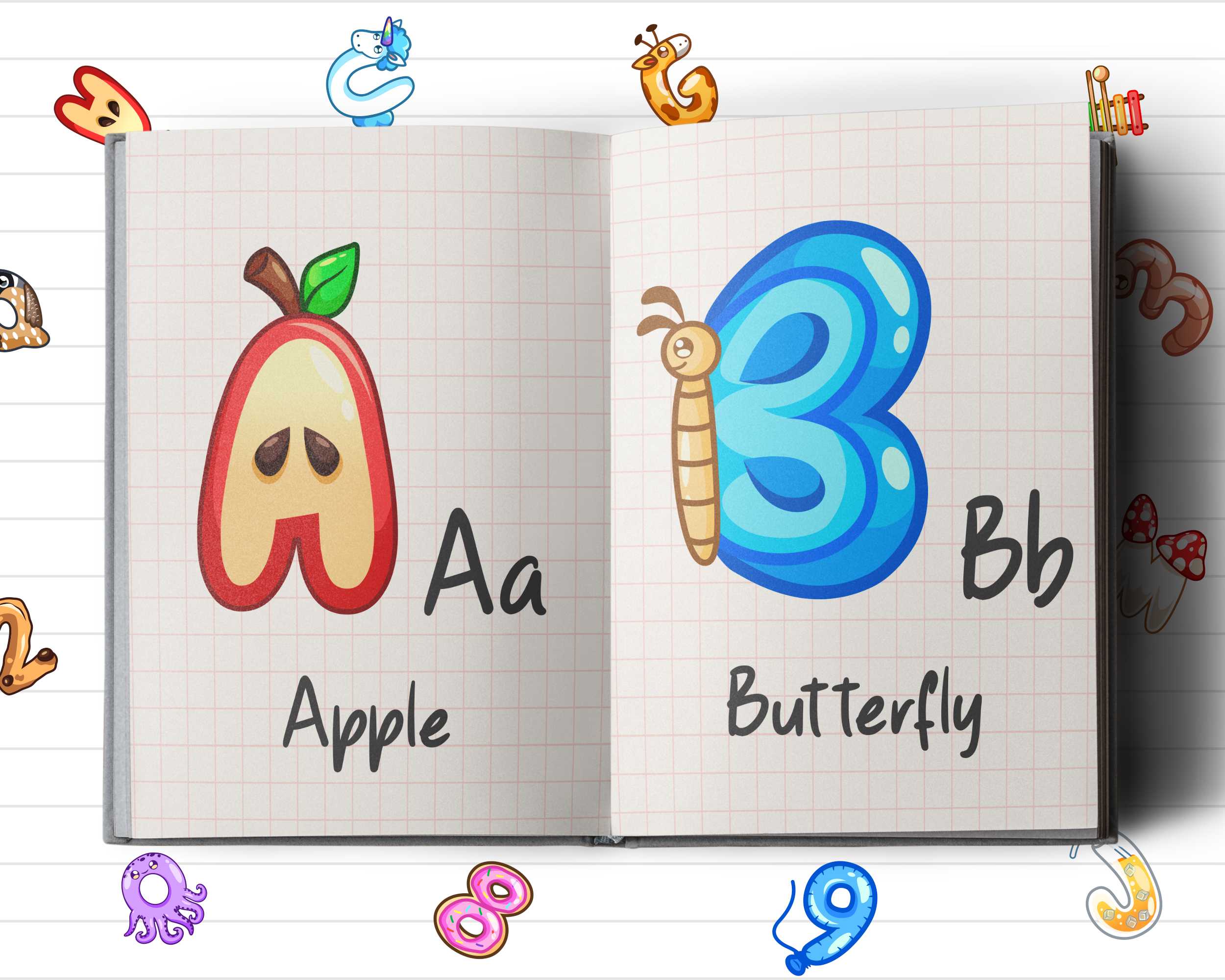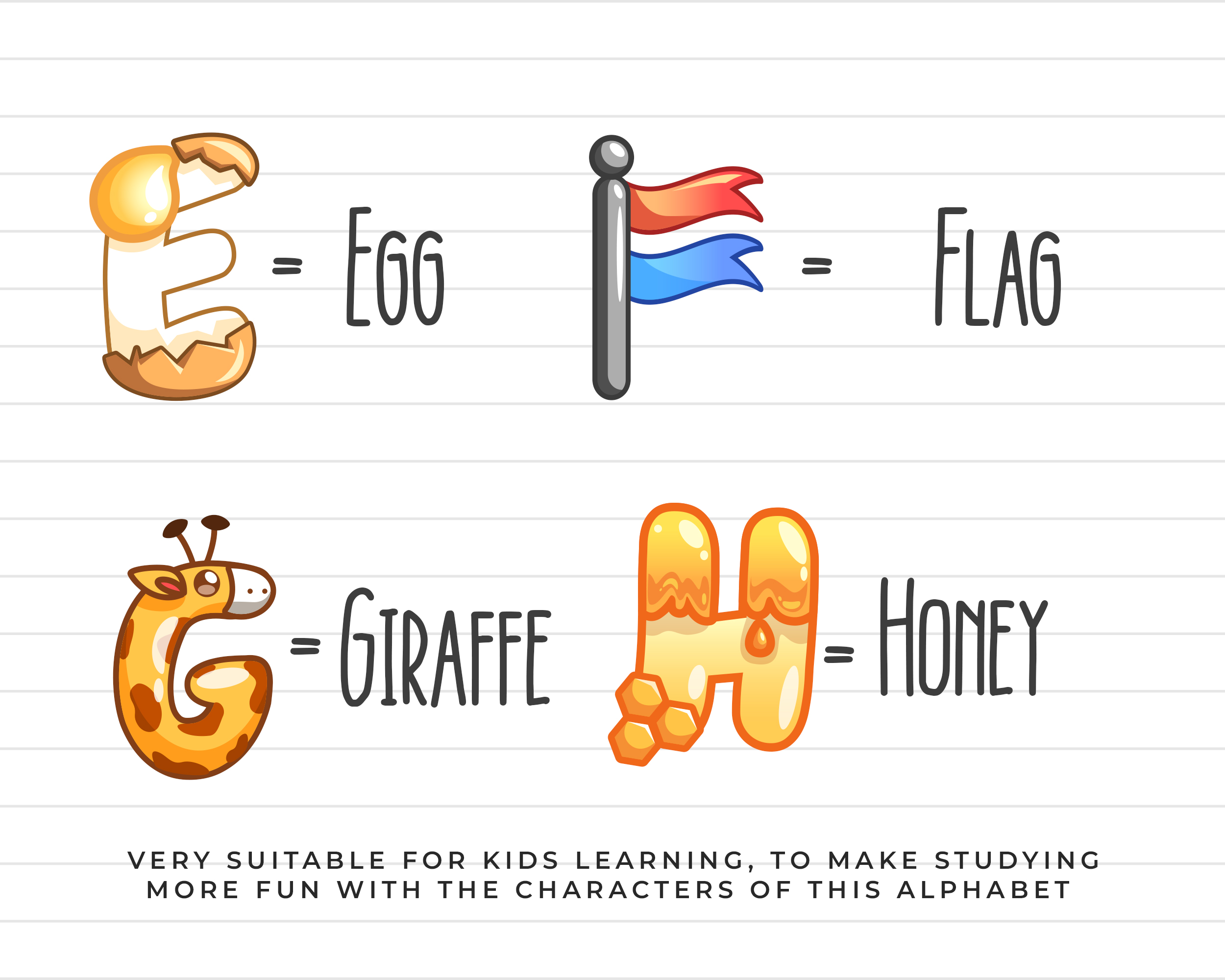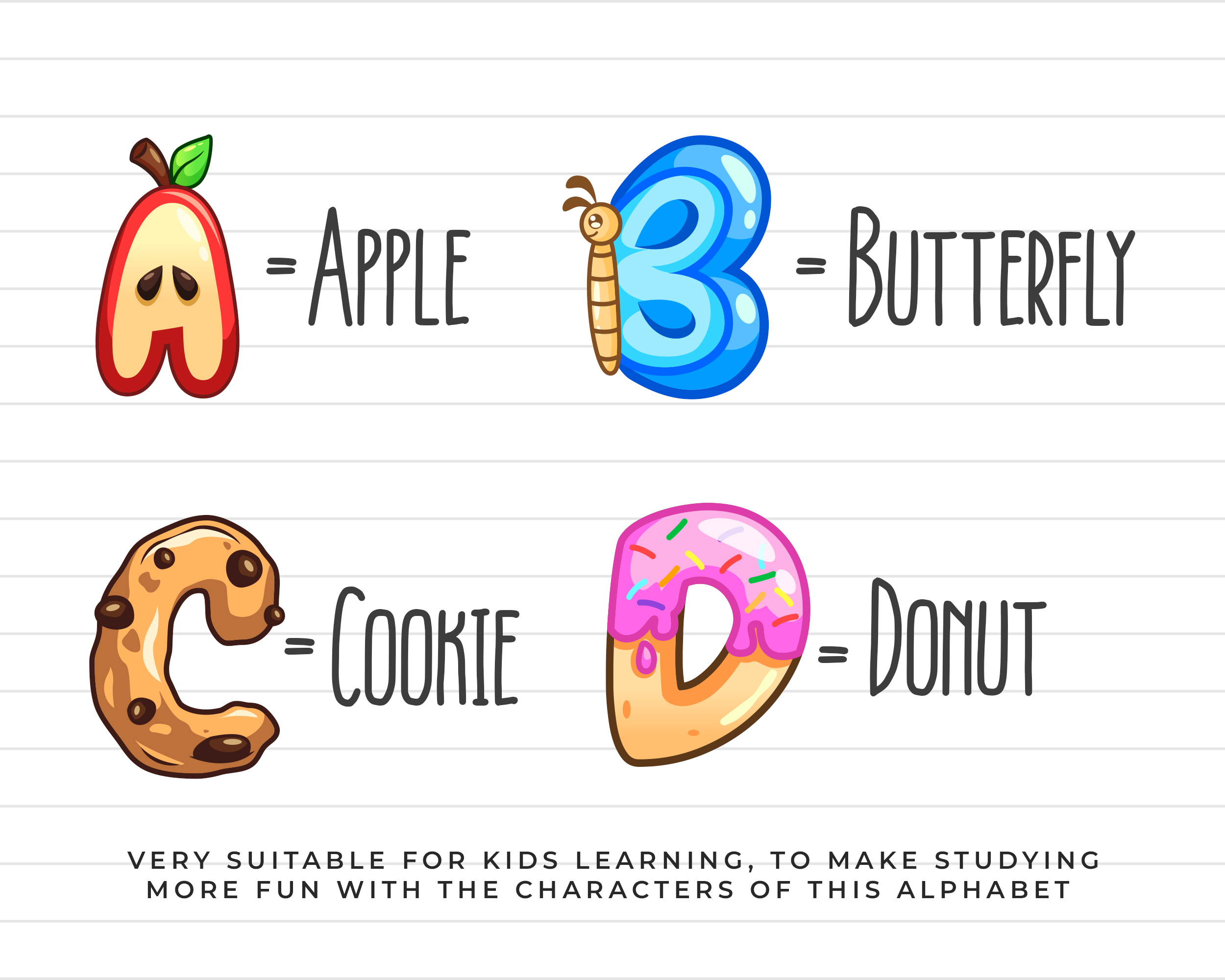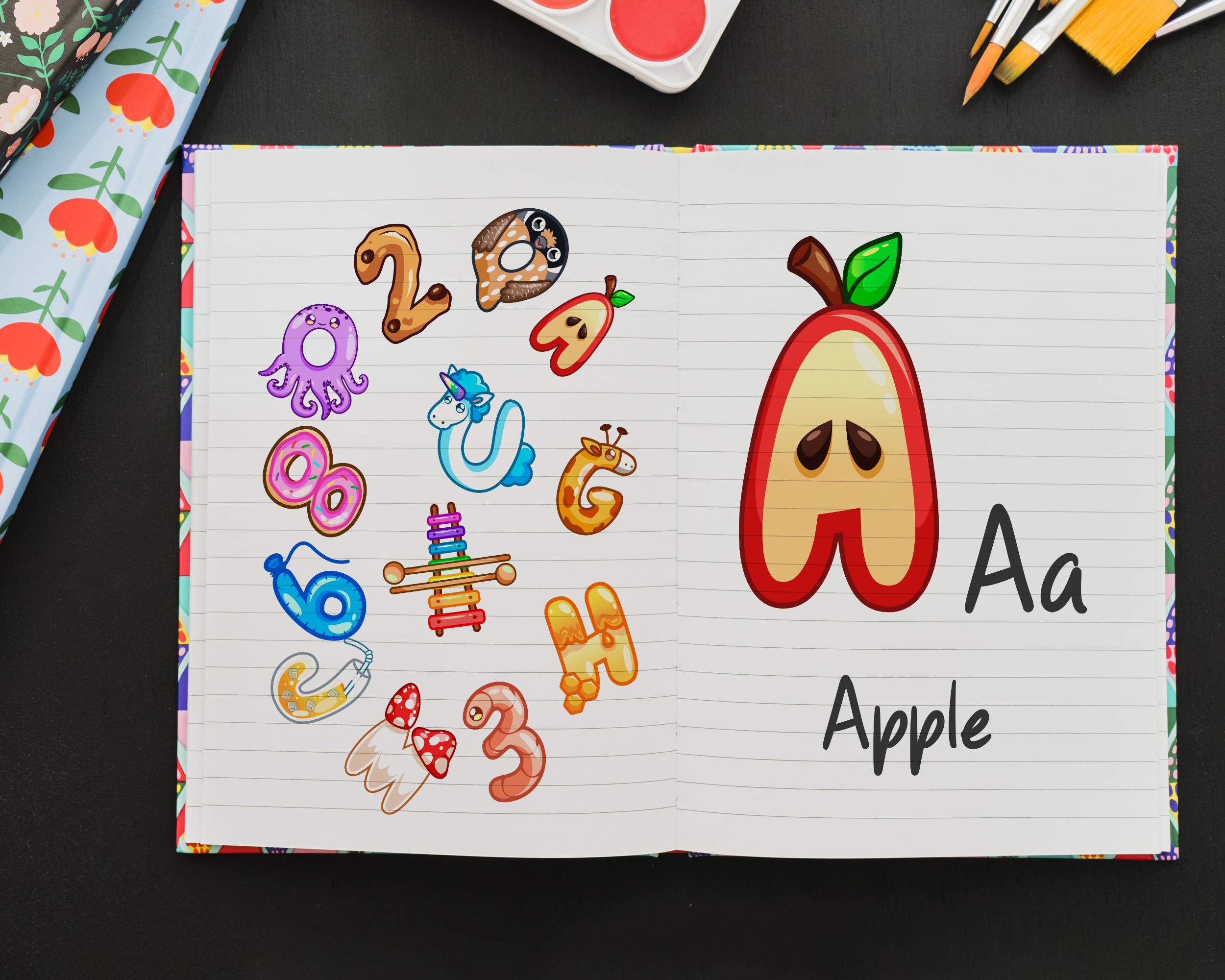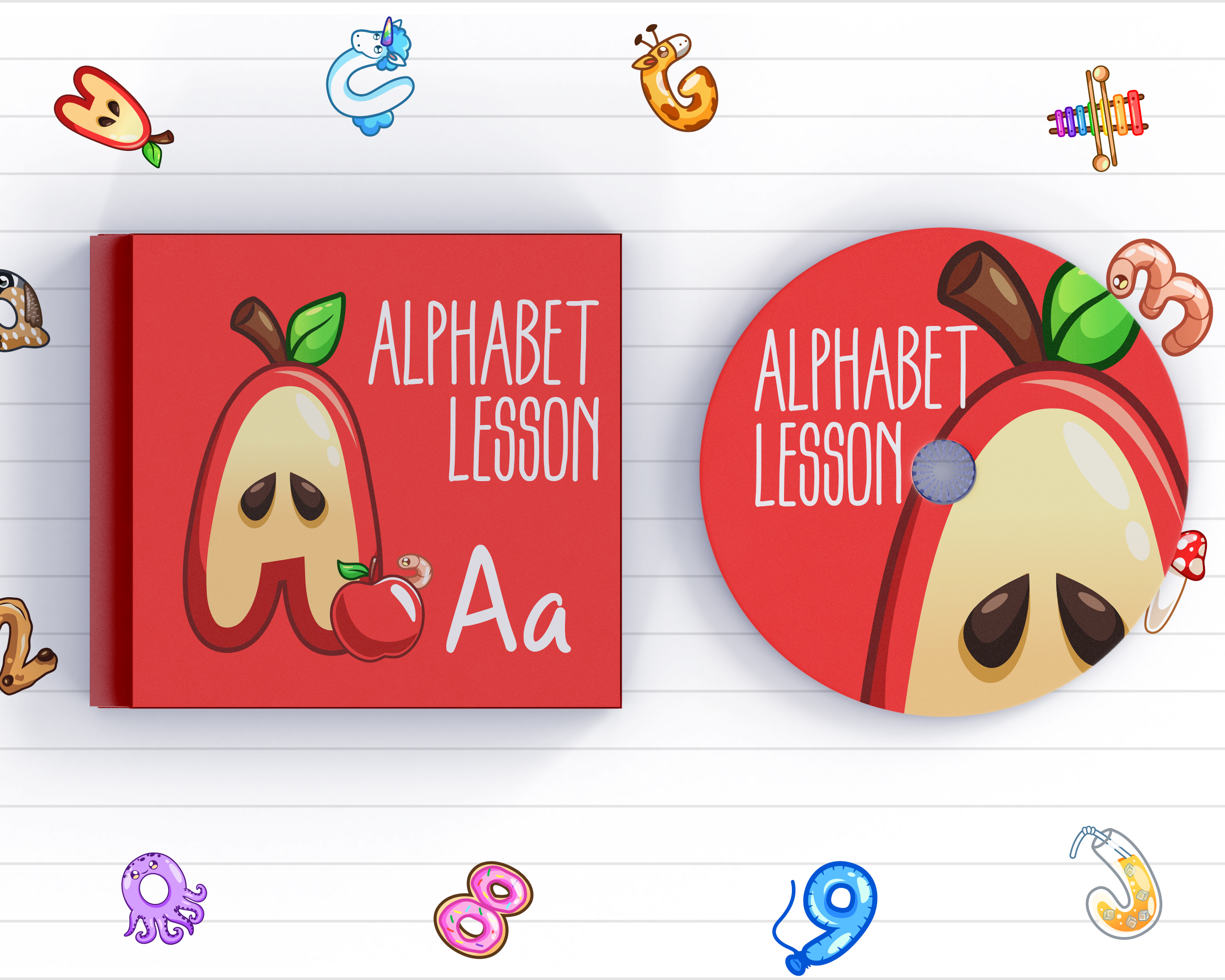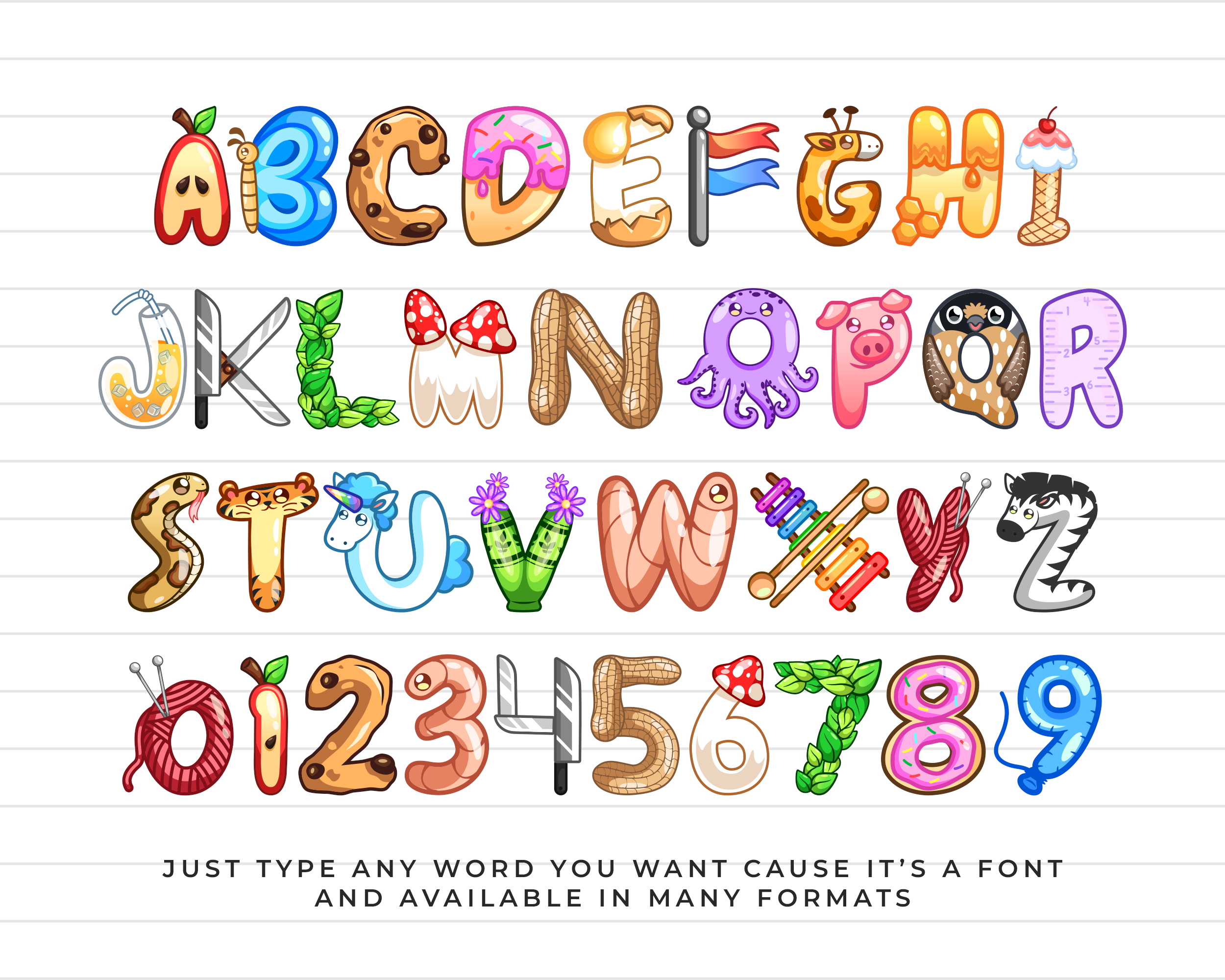
Colorful Decorative Alphabet Font is a uniquely blended typeface concept. Made with various themes of plants, fruit, food, and many others, it is perfect for all kinds of children's activities. Unique, interesting, and funny letter shapes will leave an unforgettable impression on the children's minds. You can use this Colorful Decorative Alphabet Font for all printing needs, such as school supplies, bags, pencil cases, story books, textbooks, and decorations on school walls. When placed over a variety of items, this font is fun and the eye-catching typographic design will grab a child's attention instantly. For this reason, we recommend using this typeface in any product intended for children. The cute Colorful Decorative Alphabet Font can use effectively in the digital world. This font is also suitable for individuals and companies who want to create games for children or those who want to produce a movie or video streaming service for young audiences. Our collection of Decorative fonts and compatible for use as Figma fonts, Canva fonts, Freepik Fonts, and Adobe Fonts. They also work as Windows Fonts and Apple Fonts. For your social media needs, you can use and install fonts in our collection of display and decorative typography to use as Instagram Fonts, Facebook Fonts, and Twitter Fonts.